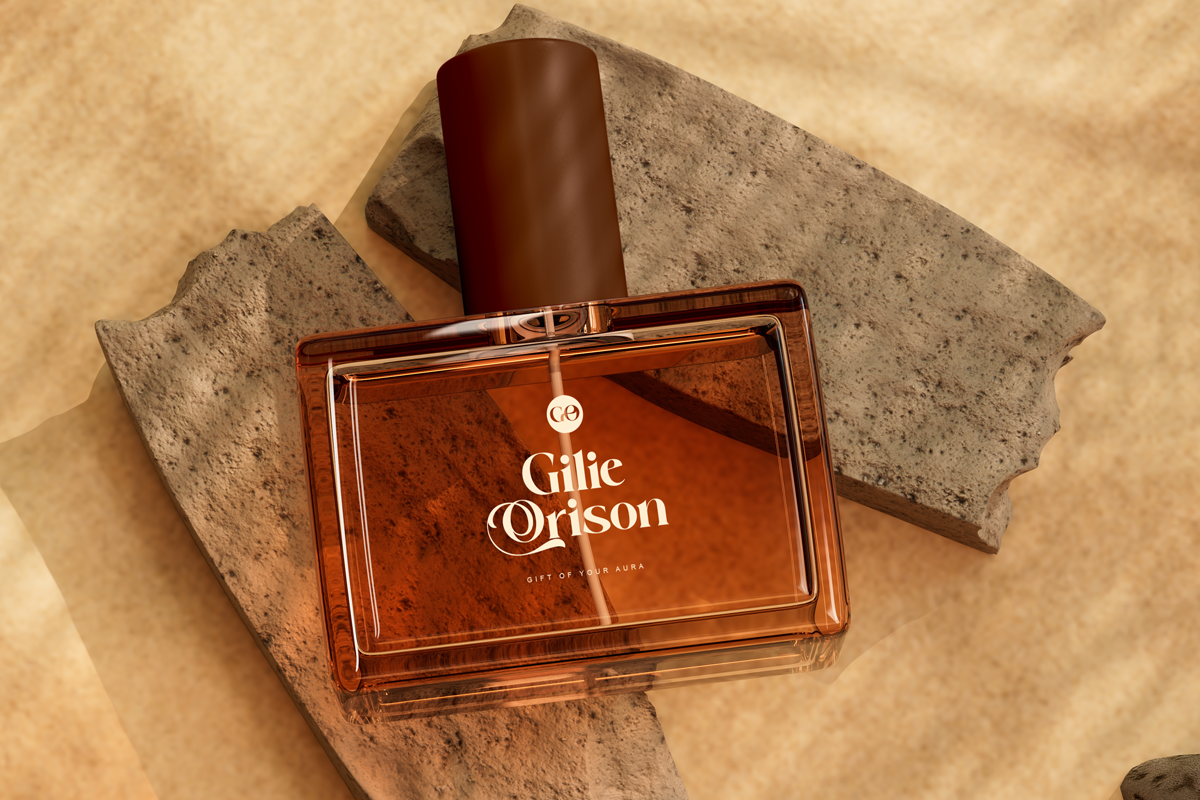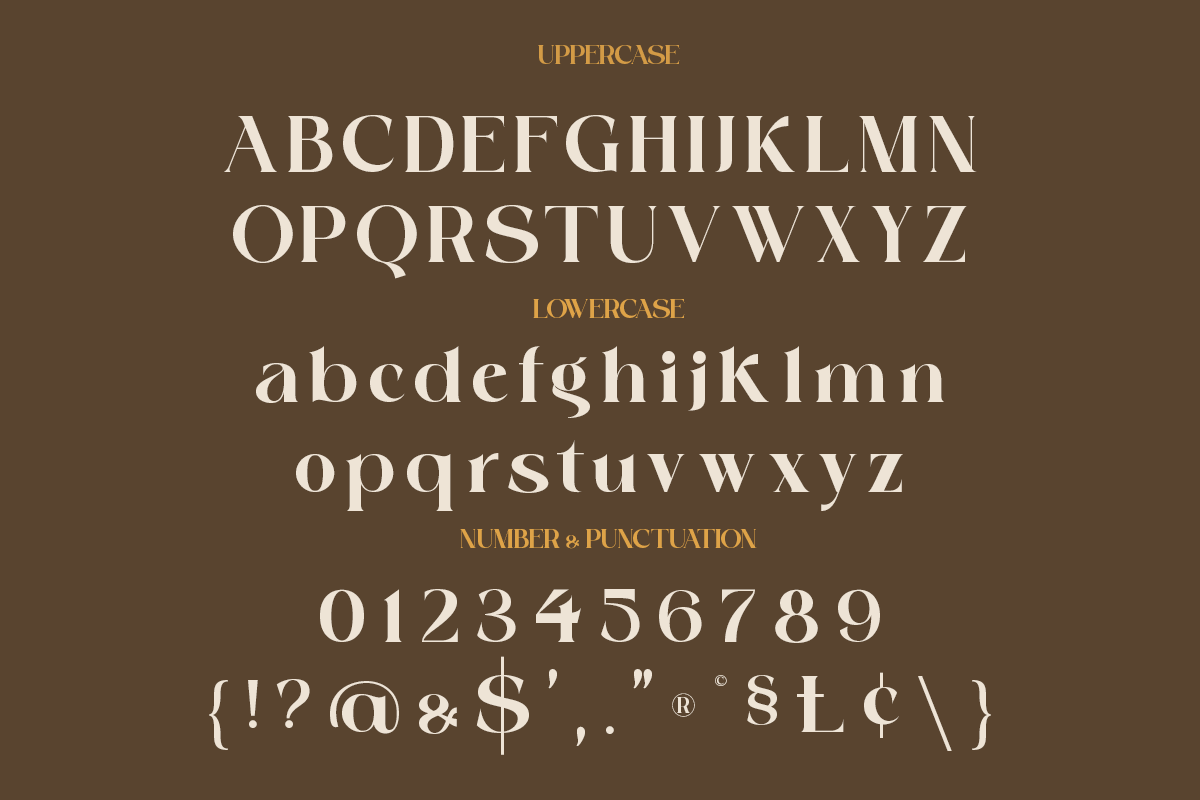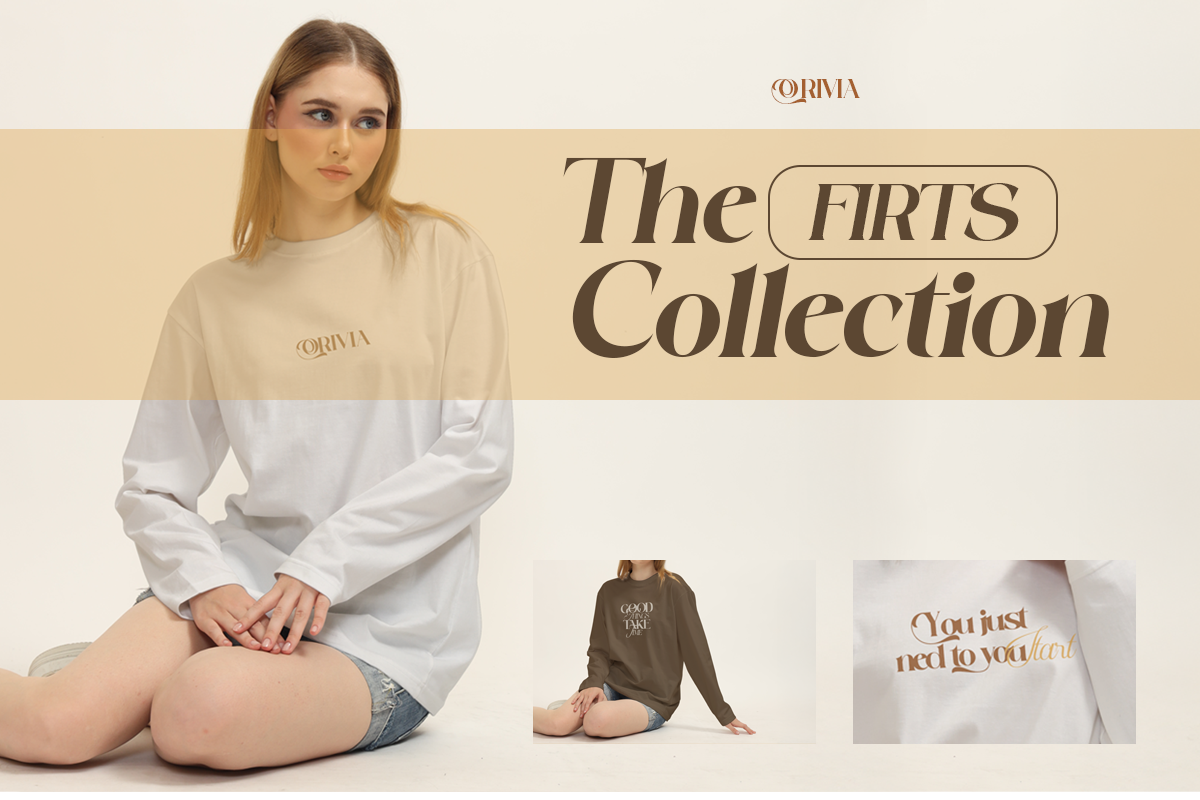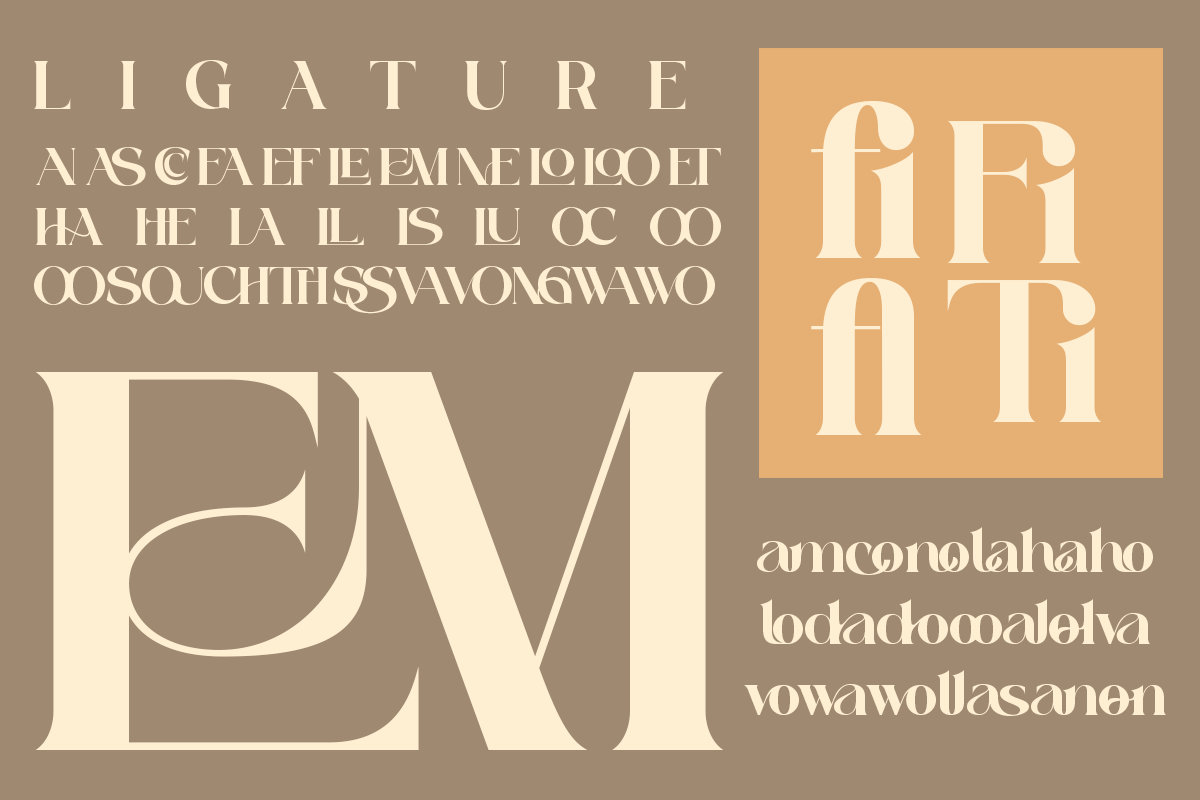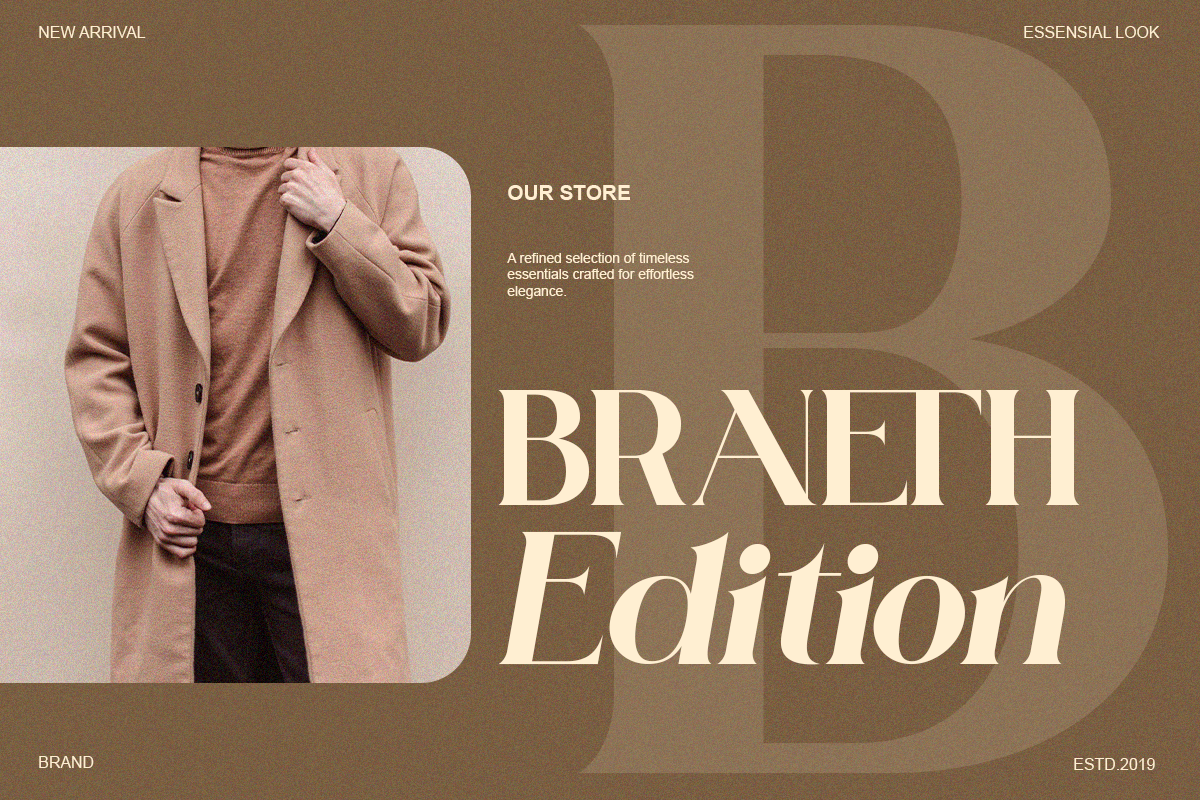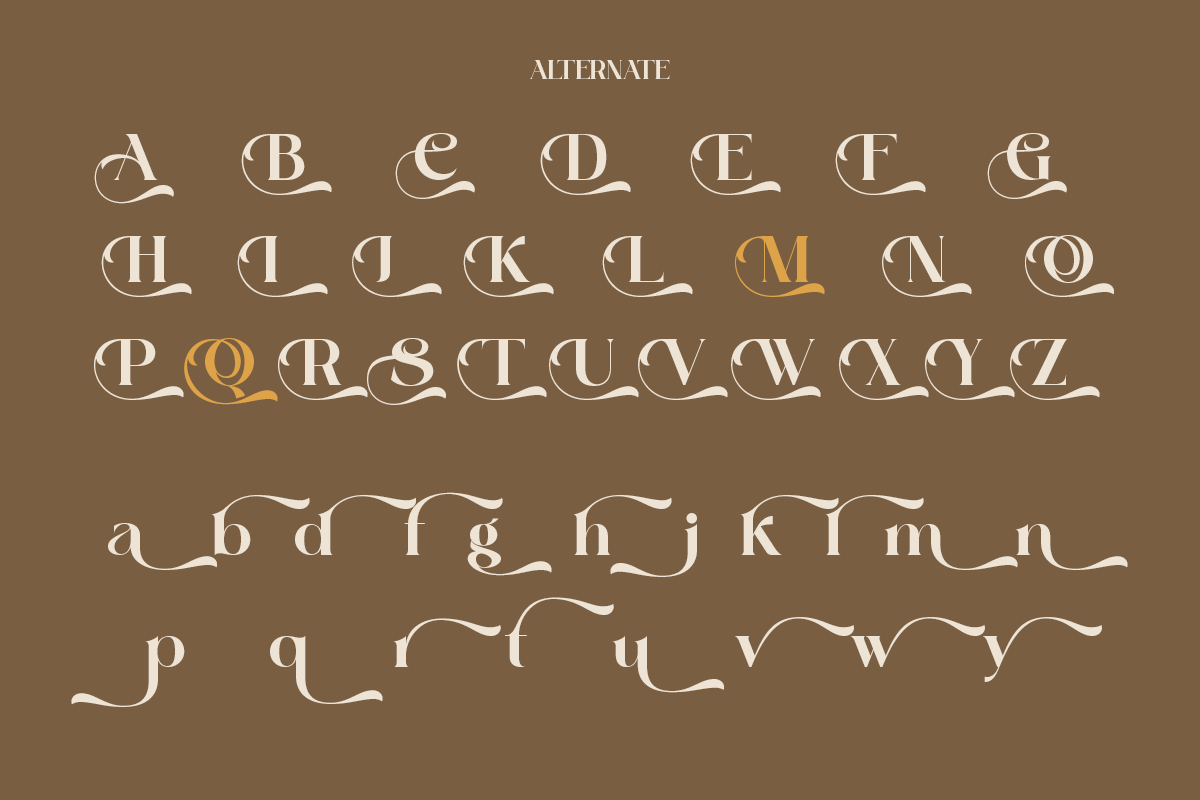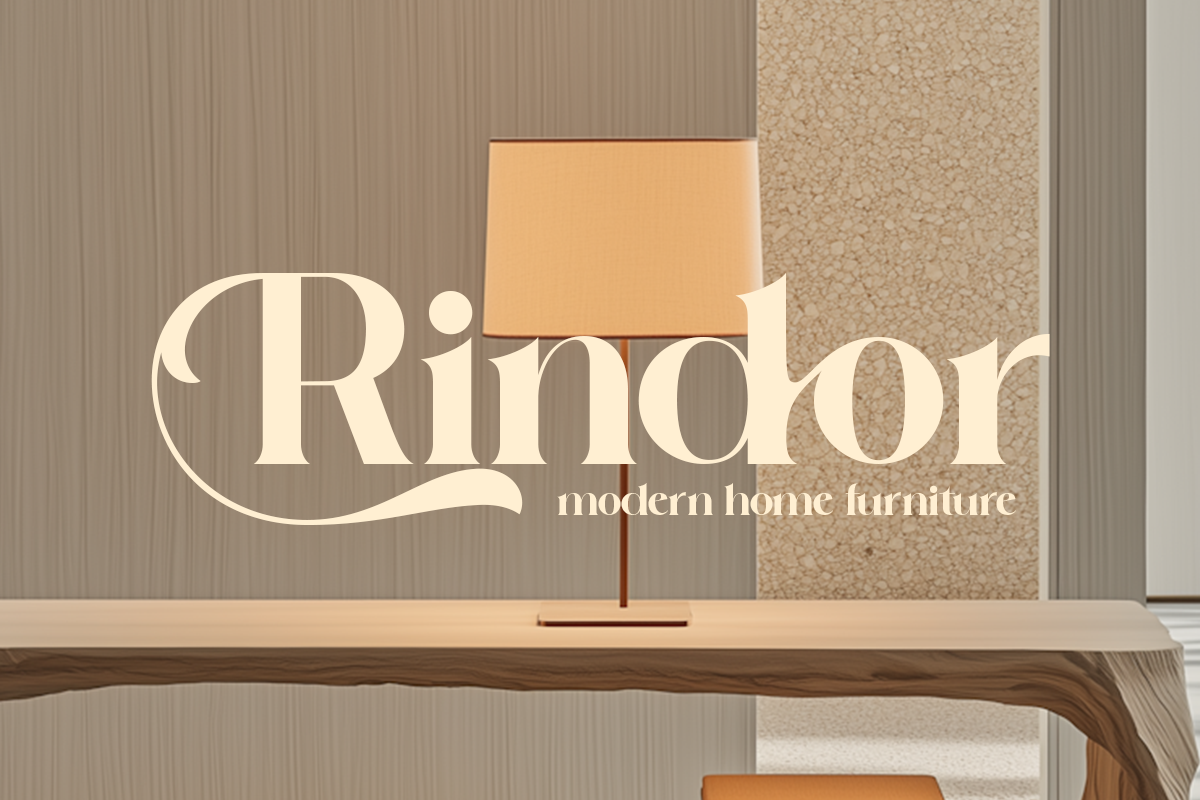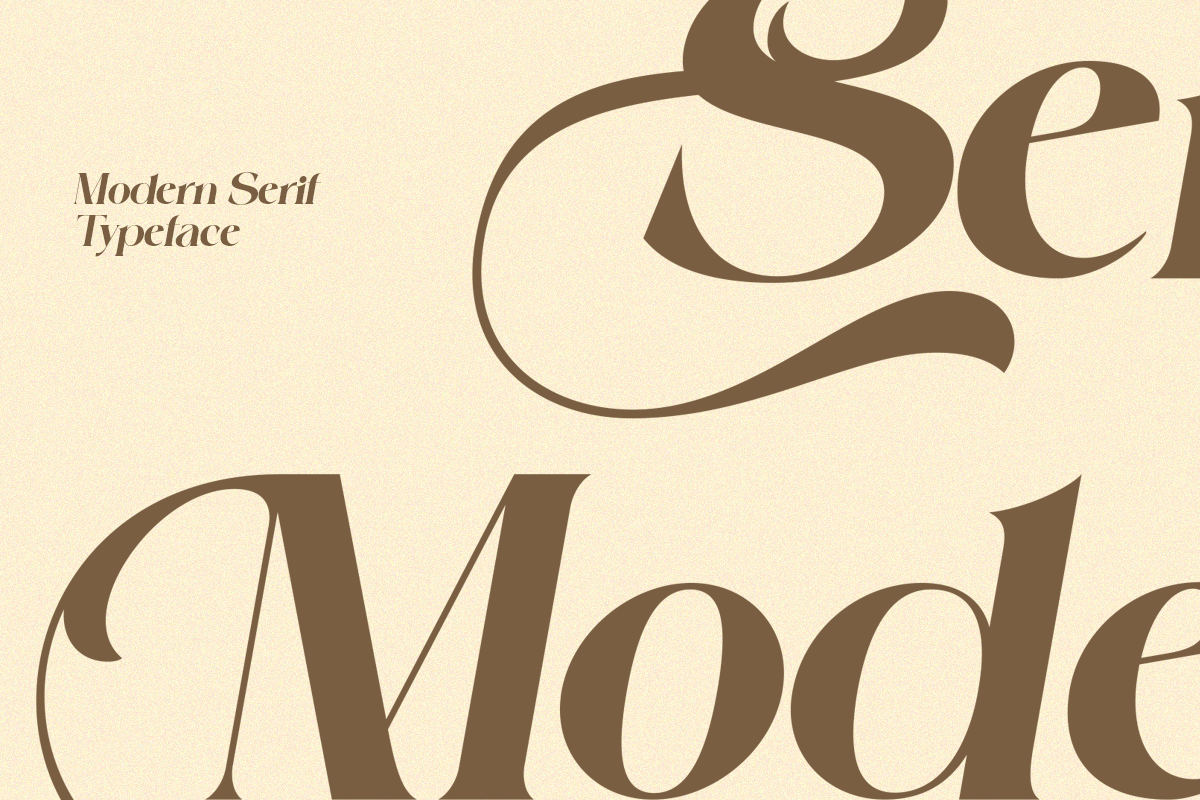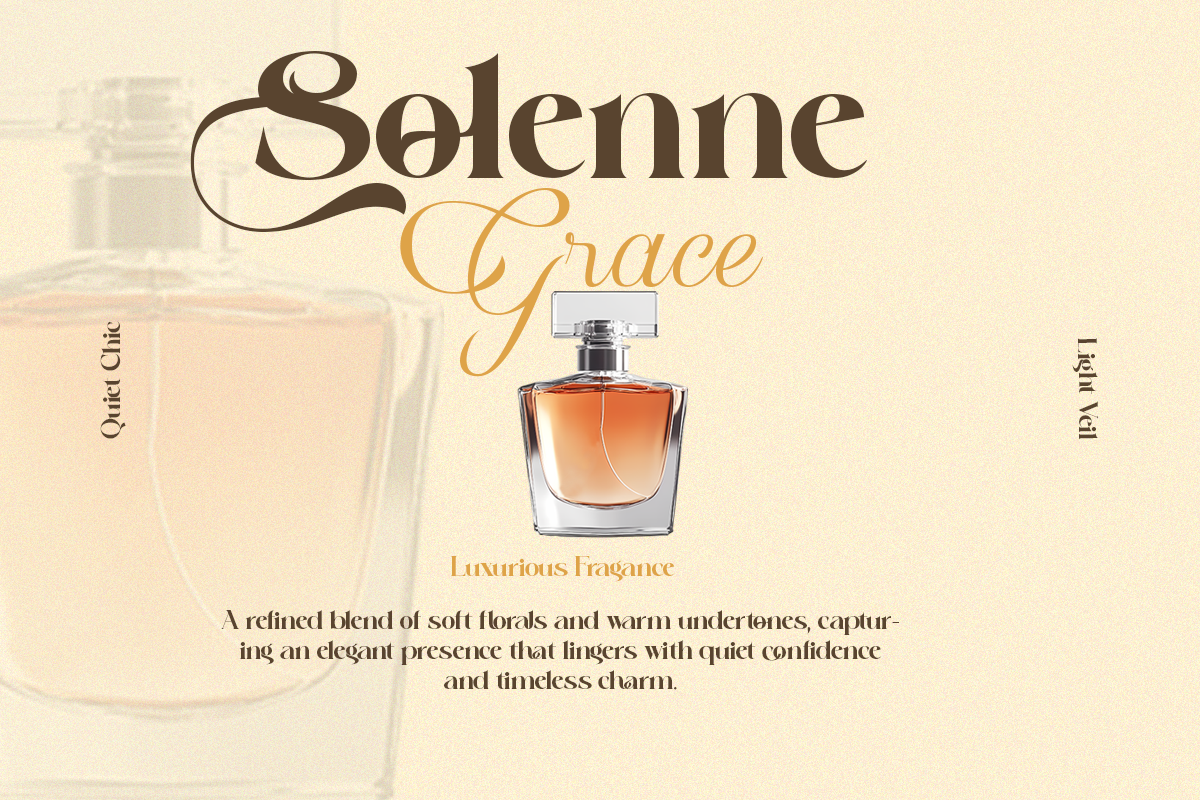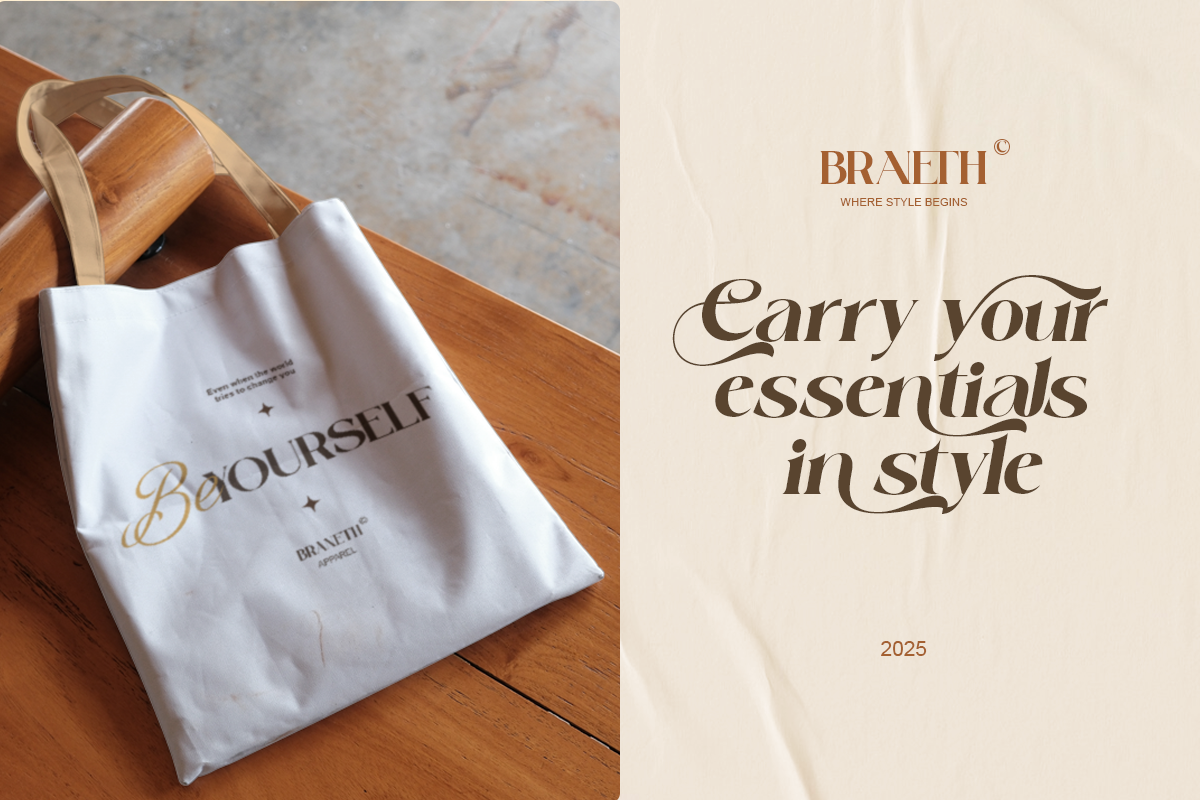
A Luxury Swash Serif - Anthela
Meet Anthela, a boutique serif font made for elegance lovers. It combines modern serif structure with flowing swashes that add personality and softness to every word.
Perfect for fashion logos, wedding invites, beauty brands, boutique packaging, and editorial headlines.
Anthela creates a confident yet romantic presence, ideal for brands that want to feel timeless, refined, and premium.
- Regular & Italic
- Full uppercase & lowercase
- Alternates & ligatures
- Elegant swash details
Perfect For Wedding stationery, beauty brands, boutique logos, luxury packaging, magazine covers, social media templates.